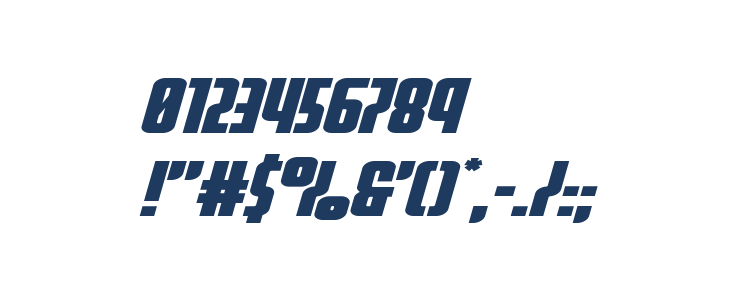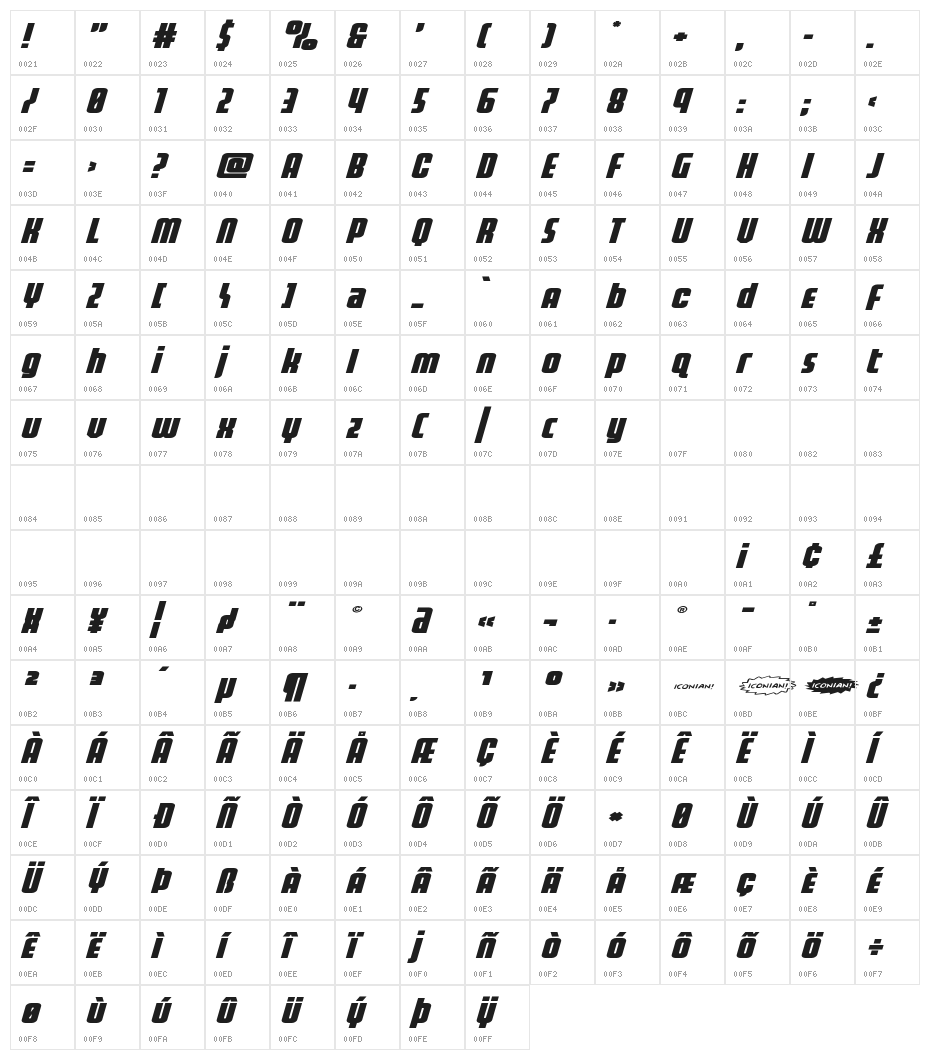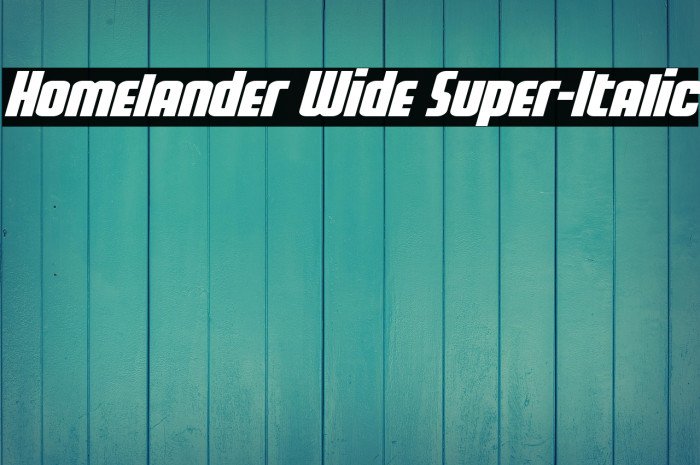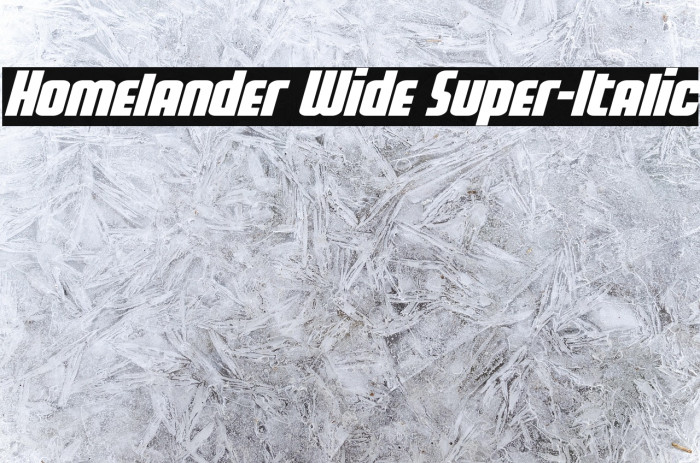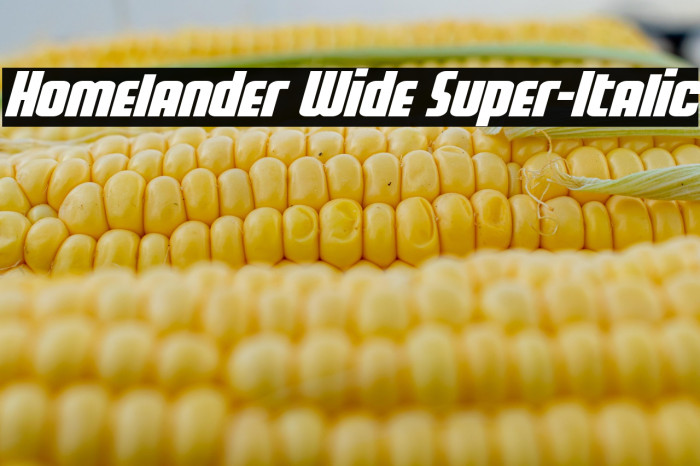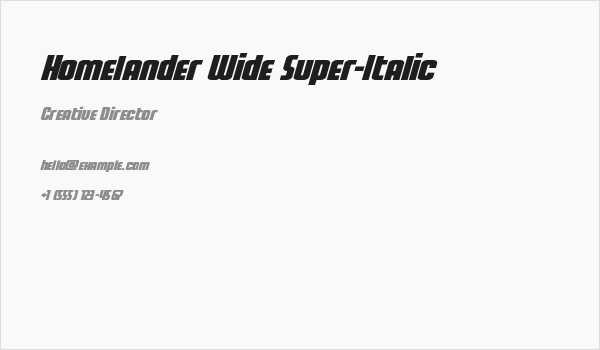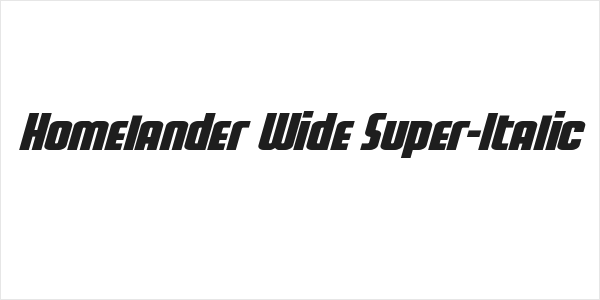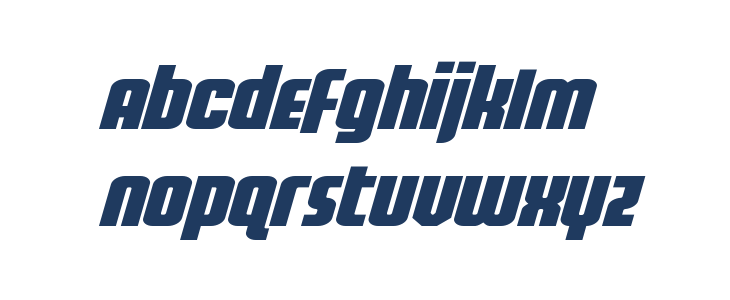
Homelander Wide Super-Italic Font
Homelander Wide Super-Italic Description
This font exhibits a bold and dynamic style with a strong italic slant, giving it a sense of movement and energy. The characters are wide and robust, with a consistent stroke thickness that enhances readability while maintaining a powerful presence. The uppercase and lowercase letters are designed with a modern flair, featuring sharp angles and clean lines. The numerals and special characters are equally bold, ensuring uniformity across all text elements. This font is ideal for making a statement, with its striking appearance and contemporary design.